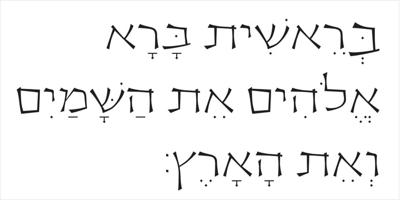
Jana Thork Font Free Download is a distinctive and often artistic typeface, perfect for designs that aim to convey a sense of unique personality, handcrafted appeal, or modern creativity. Imagine it gracing unique boutique branding, expressive album covers, charming indie game titles, or creative personal blogs. Its unconventional and often slightly whimsical character also makes it an excellent choice for engaging social media graphics, distinctive apparel designs, and artistic event posters. Whether your goal is to impart a sense of individuality, playful charm, or a strong contemporary presence, Jana Thork Font offers the stylistic punch to elevate your creative vision.
What makes Jana Thork Font truly exciting is its immediate ability to stand out and inject a unique character into any design. It often features non-standard letterforms, a handcrafted texture, or an energetic baseline that gives it a memorable and approachable vibe. This isn't just another display font; it's a meticulously crafted typeface that brings a unique blend of artistic flair and undeniable impact to any text. Designers will appreciate its strong visual appeal and how it can effortlessly infuse a design with a dynamic, memorable personality, making it a compelling choice for projects that need to make a statement and resonate with a creative audience.
The Jana Thork Font family, while typically celebrated for its singular, impactful display style, often provides options to enhance its usability across different design needs. You can generally expect a Regular weight that forms the core of its aesthetic, capturing its characteristic energy and unique design. Sometimes, additional styles like Bold variations for even greater emphasis, or perhaps Outline versions for versatile layering, might be available. This focused yet adaptable range within the family ensures that Jana Thork Font Free Download can be effectively utilized for both prominent headlines where its unique charm can shine and for other creative applications where a consistent, vibrant style is desired.